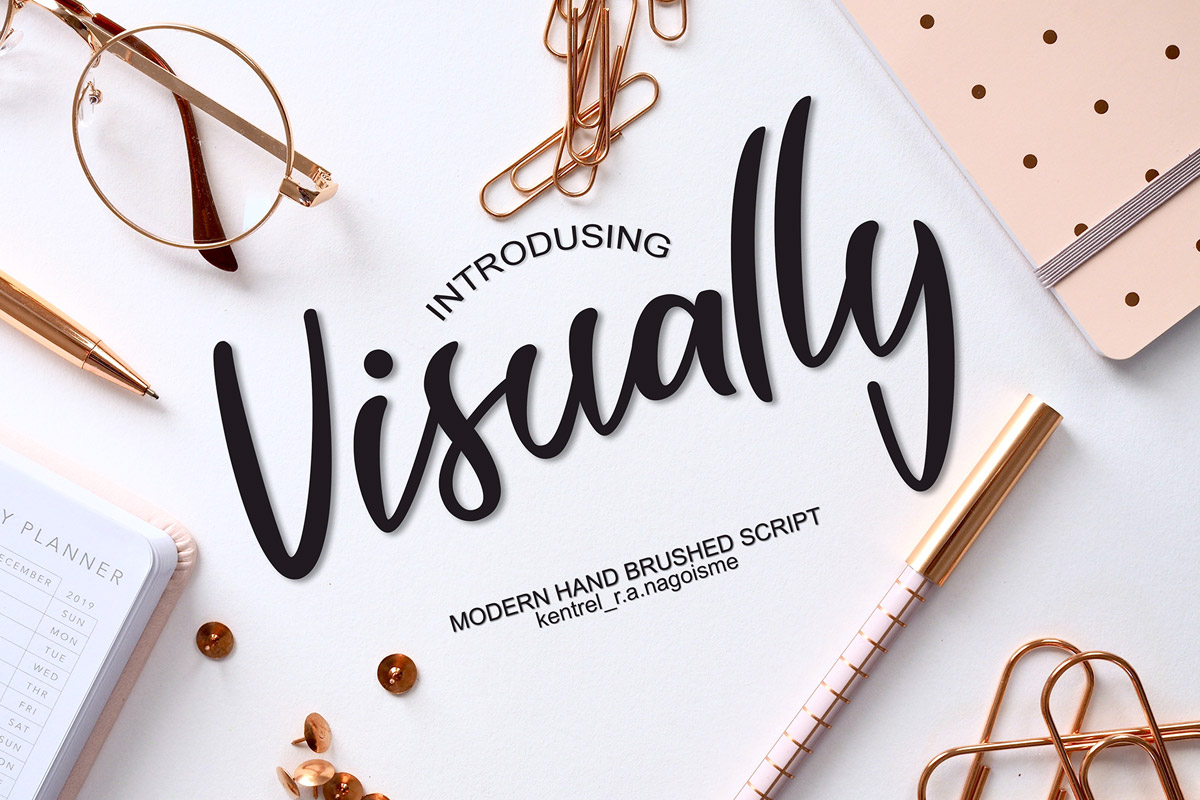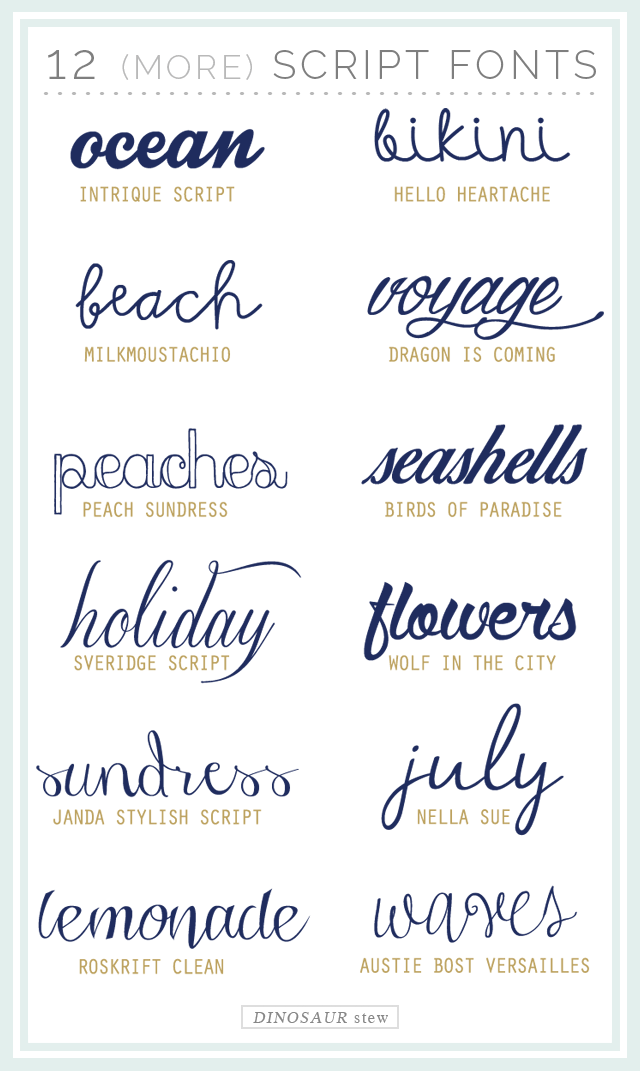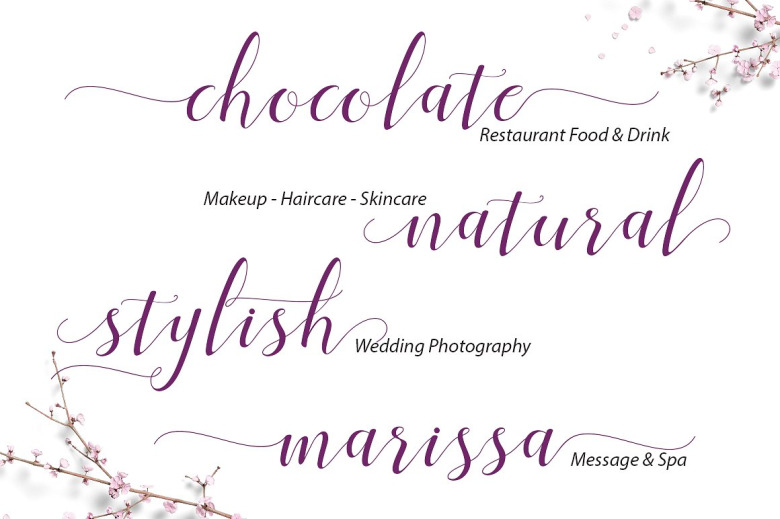
Play Script Fonts. Puppies play is a fun, bouncy script with connectors that give a playful flow. Script, caps, and ornament, which you can combine to create a beautiful designs.
The euphoria script font is a casual script with fast curves and slight angle giving the text a playful look. Play time is a thin, quirky font with an irregular baseline that will give your projects a playful feeling with just a couple of clicks! Playlist font contains 3 styles:
It is suitable for wedding invitation, greeting card, illustration, quotes, poster,. They can either be formal where they’ll appear elegant or informal where they’ll appear more playful. Script, caps, and ornament, which you can combine to create a beautiful designs.
The Real Version Has Longer Tails, While The Roman Version Cuts Them Up To Make The Font Mor.
Play time is a thin, quirky font with an irregular baseline that will give your projects a playful feeling with just a couple of clicks! This means the cutting time takes much less. Carollo playscript contains 10 styles and family package options.
Puppies Play Is A Fun, Bouncy Script With Connectors That Give A Playful Flow.
White dream à € by mans greback. Playlist is a perfectly imperfect handdrawn font with dry brush styles. Playlist font contains 3 styles:
They Are Organized Into Highly Regular Formal Types Similar To Cursive Writing And Looser, More Casual Scripts.
Script fonts are beautiful typefaces that resemble handwritten and calligraphic lettering styles. Each letter has been thoroughly cleaned, reducing the number of nodes to a minimum. Ca play script | fonts.com.
Play is a minimalistic sans serif typeface designed by jonas hecksher during his time as type director of playtype type foundry. An informal script font, euphoria script is more playful and casual than other script fonts. In general your script should be clean and clear, so that the text takes center stage.”